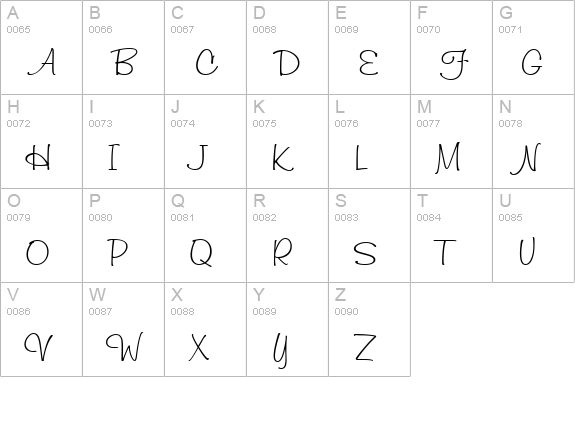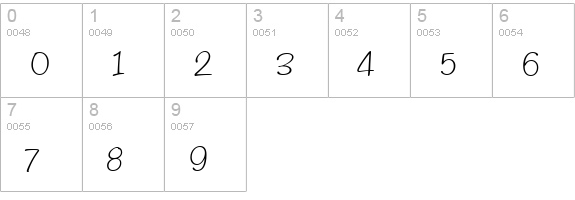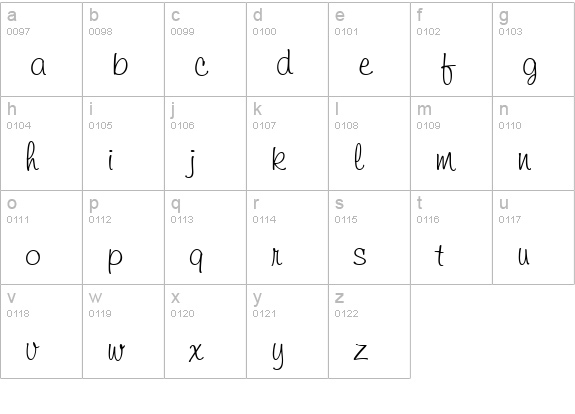
Kayleigh Font Details
Introducing Kayleigh Font, a stunning and versatile typeface that is sure to catch the eye and enhance any design project. This font exudes elegance and sophistication, making it perfect for a wide range of applications, from branding and advertising to invitations and social media graphics. With its clean lines and graceful curves, Kayleigh Font adds a touch of modernity to any design while still maintaining a timeless appeal. Its unique letterforms are beautifully crafted, creating a harmonious balance between legibility and artistic flair. One of the best aspects of Kayleigh Font is that it is available for free download at FontsMarket.com. This means that designers and enthusiasts alike can easily access this remarkable font without breaking the bank. Whether you are a professional graphic designer or someone who simply enjoys experimenting with typography, Kayleigh Font is a must-have addition to your font collection. The versatility of Kayleigh Font is evident in its extensive character set, which includes uppercase and lowercase letters, numerals, punctuation marks, and a wide range of special characters. This allows you to effortlessly create stunning typographic compositions that truly stand out. Furthermore, Kayleigh Font is compatible with both Mac and Windows operating systems, ensuring that everyone can enjoy its beauty and functionality. Its easy installation process means that you can start using this font in no time, unleashing your creativity and bringing your designs to life. In conclusion, Kayleigh Font is a magnificent typeface that combines elegance, versatility, and accessibility. Its free availability for download at FontsMarket.com makes it an irresistible choice for designers and enthusiasts alike. Embrace the beauty of Kayleigh Font and elevate your designs to new heights.